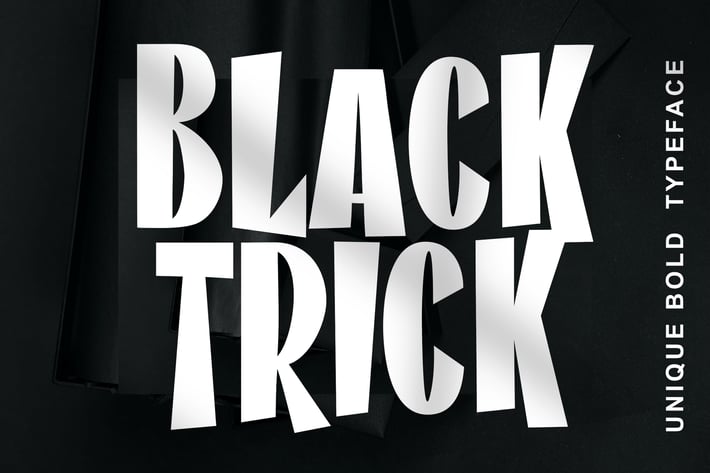
Black Trick Unique Font
Black Trick is unique sans serif font, bounce and fun. It can easily be matched to an incredibly large set of projects, so add it to your creative ideas and notice how it makes them stand out!